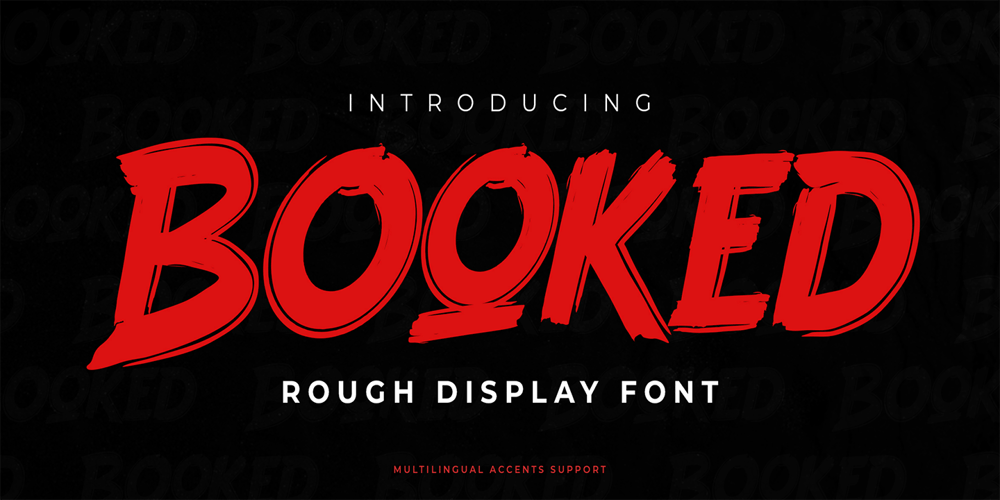
Booked Font Family was designed by Abdul Malik Wisnu, Anang Fibriyanto and published by Gassstype. Booked contains 1 styles and family package options. Hello Everyone, introduce our new product Font Booked This Is Rough Display Font.This is a Textured Natural Style and classy style with a clear style and dramatic movement.That is has charming, authentic and relaxed characteristic more natural look to your text. You can activate 4 Ligatures OpenType panel.